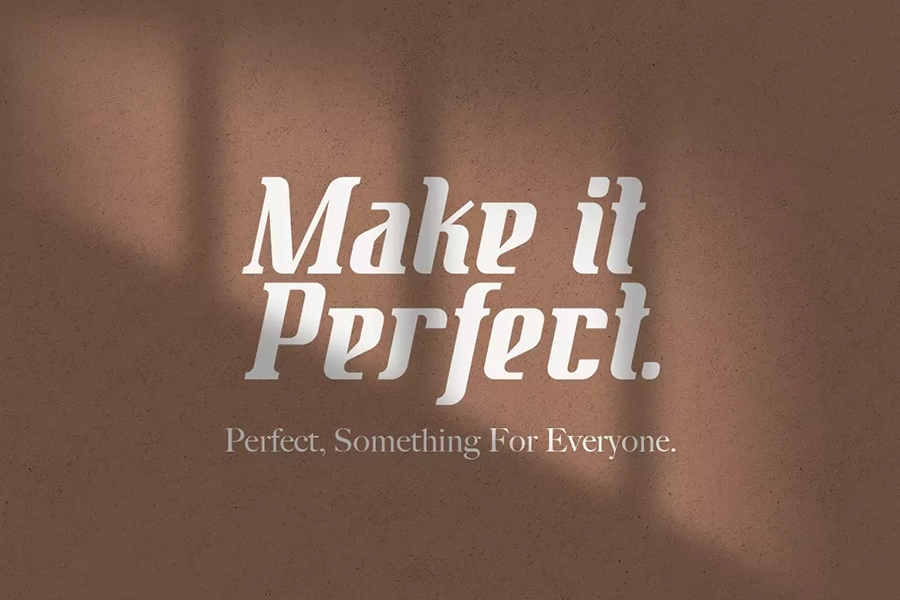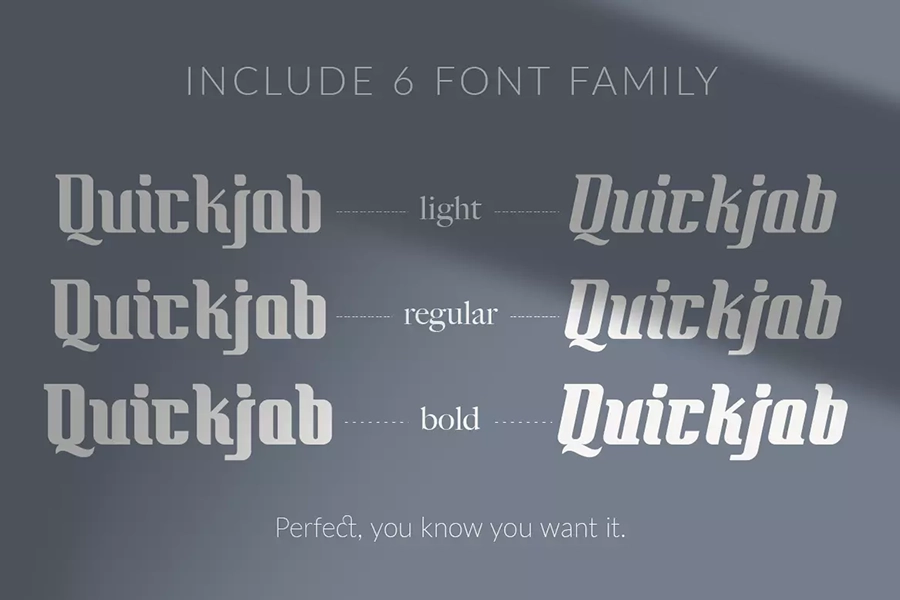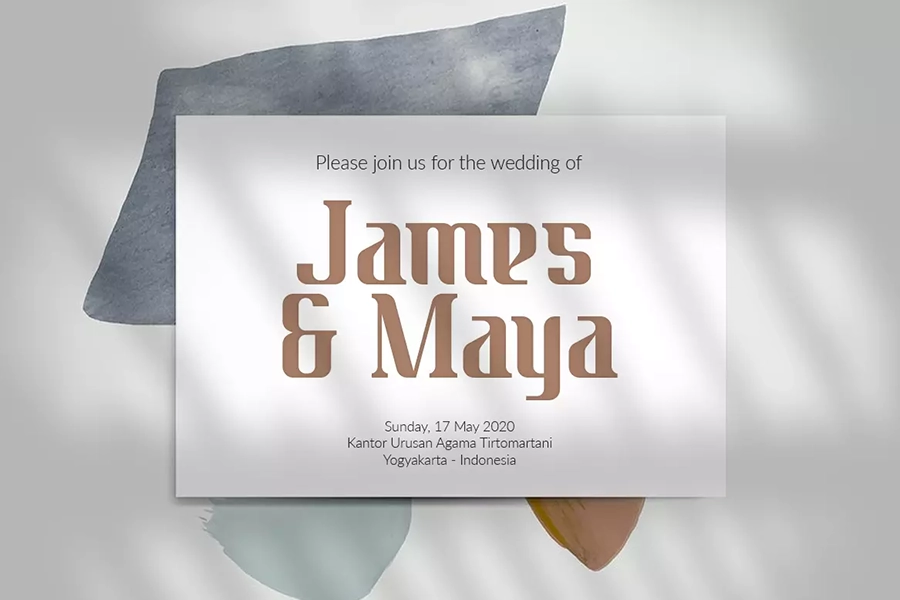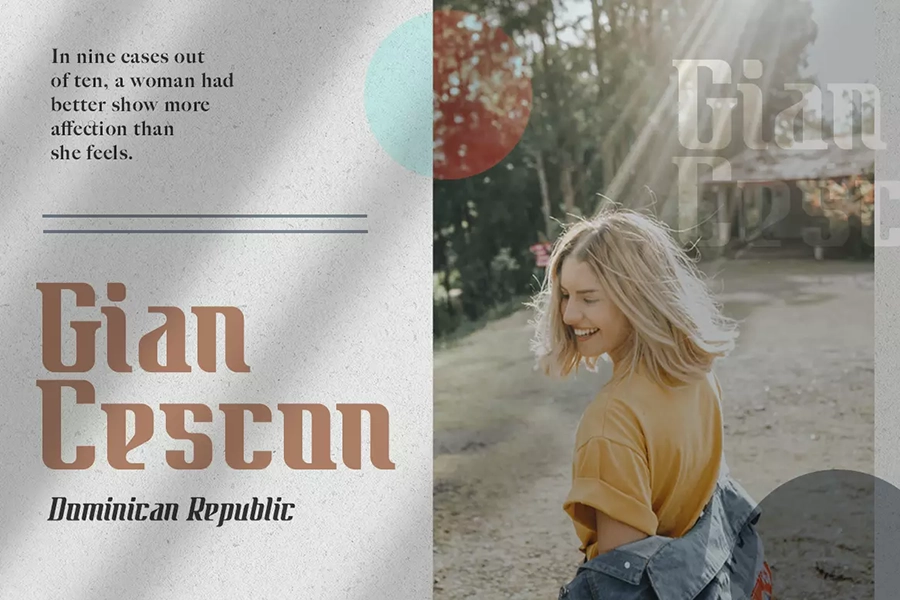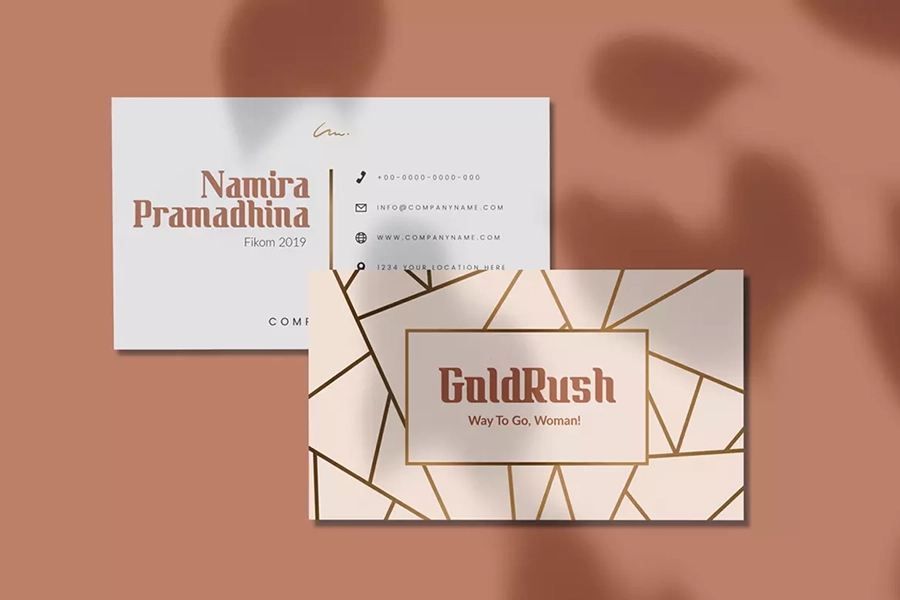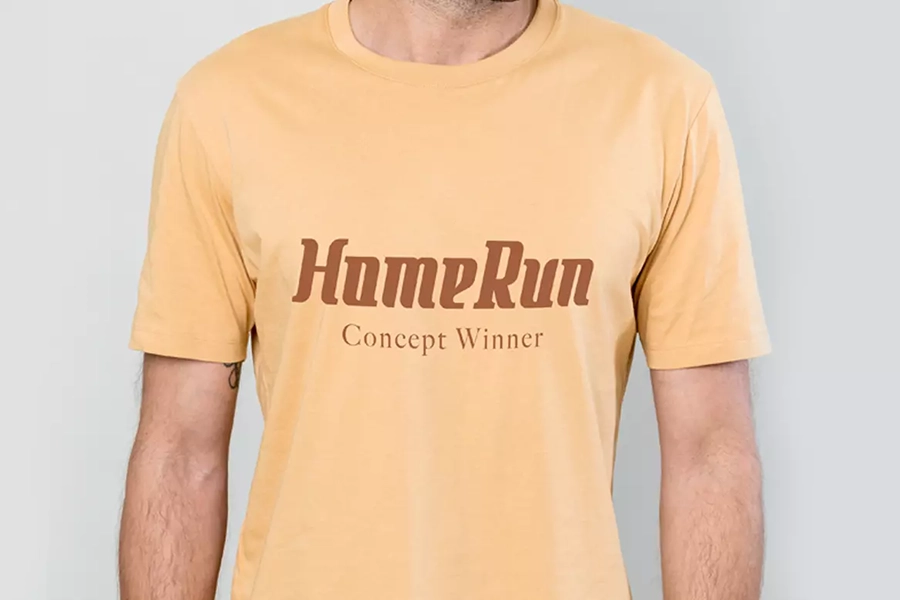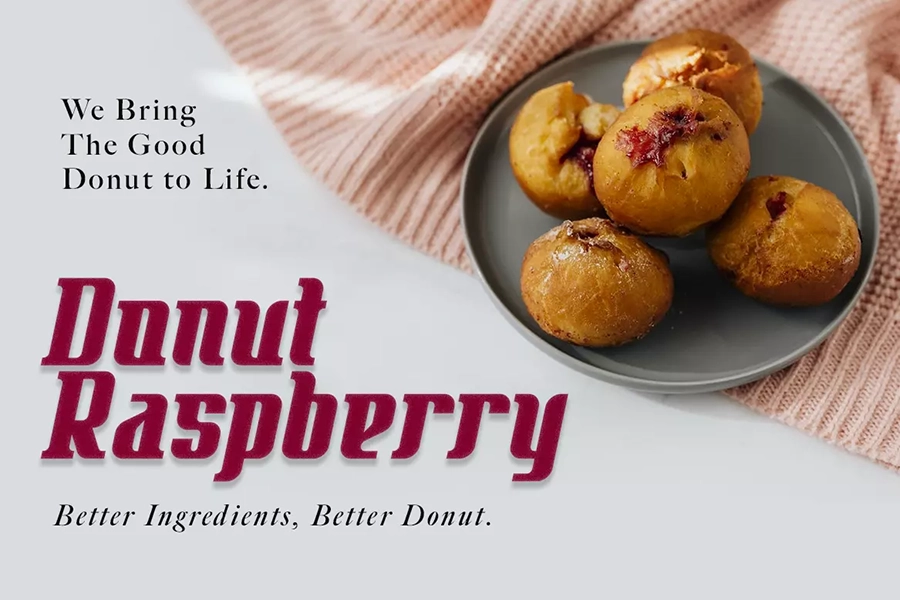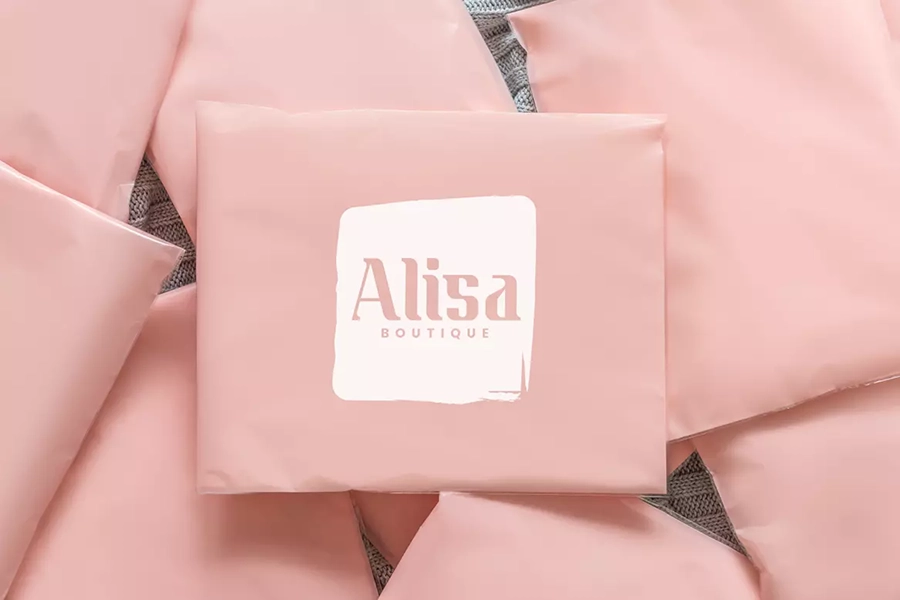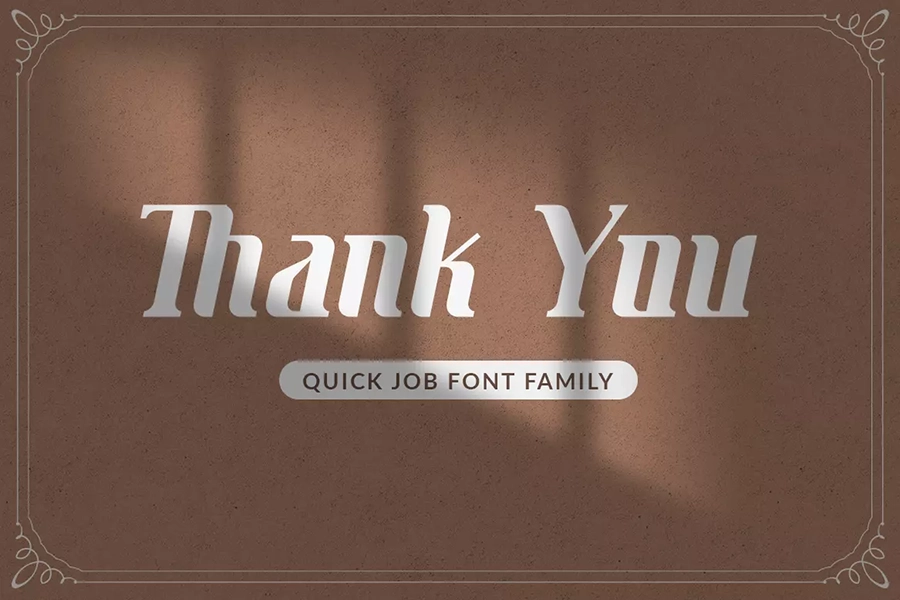
Quickjob – Strong Modern Font Family
Quickjob is a strong display font. It comes in 6 styles and it’s the perfect font to make your designs standout. It will elevate a wide range of design projects to the highest level, be it branding, headings, wedding designs, invitations, signatures, logos, labels, and much more!